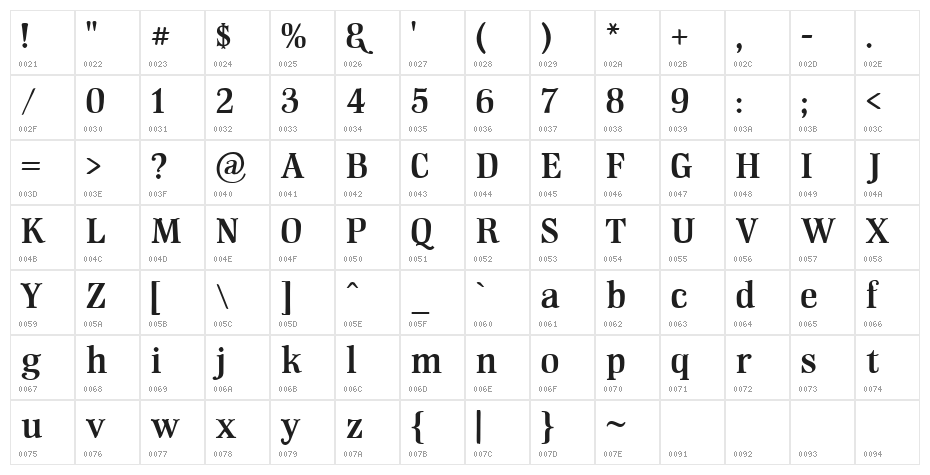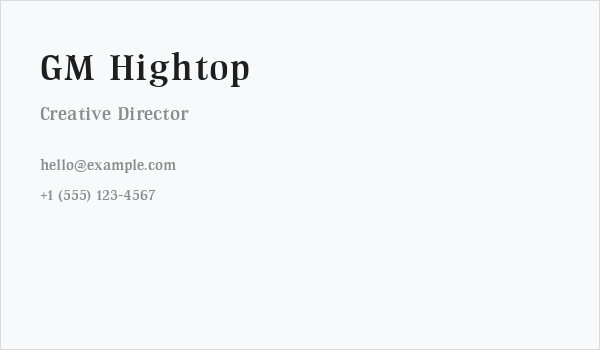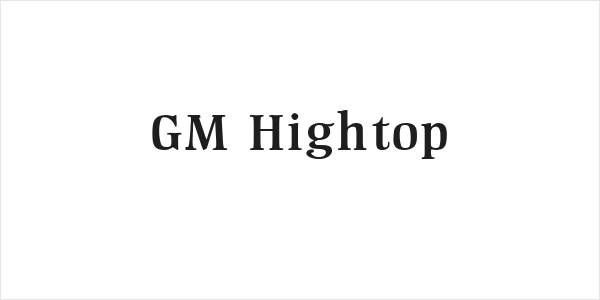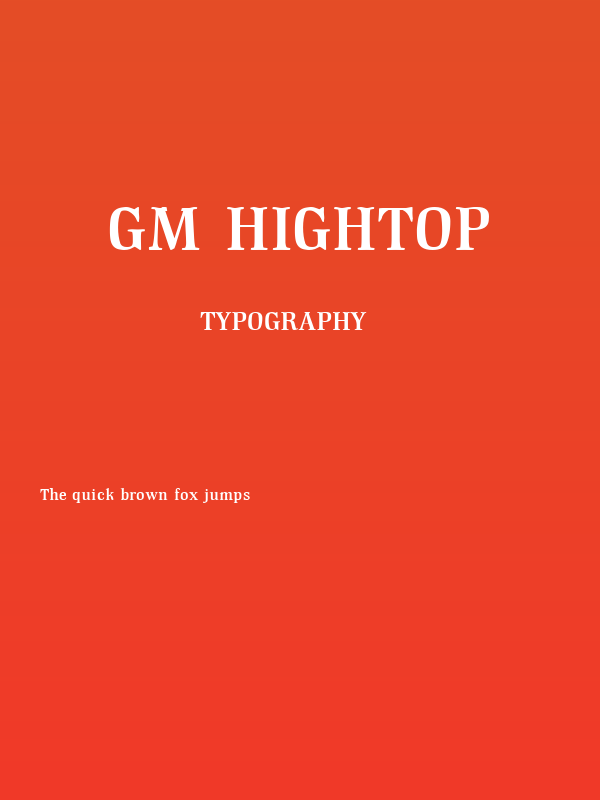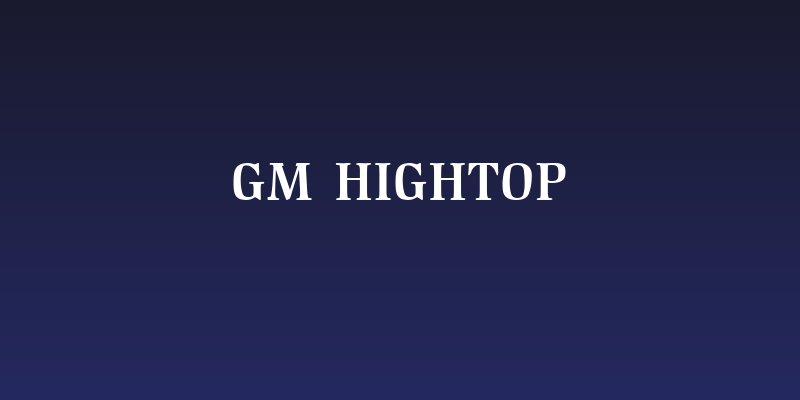
GM Hightop Font
GM Hightop Description
This typeface features a classic serif design with strong, bold strokes and distinct serifs that give it a traditional and authoritative appearance. The uppercase letters are robust and commanding, while the lowercase letters maintain a consistent style with slightly rounded edges, enhancing readability. The numerals are clear and well-proportioned, making them suitable for both text and display purposes. Special characters are elegantly integrated, maintaining the overall aesthetic of the font. The design is versatile, suitable for a range of applications from formal documents to branding materials.
GM-HIGHTOP UPPERCASE
GM-HIGHTOP LOWERCASE
GM-HIGHTOP OTHER CHARS